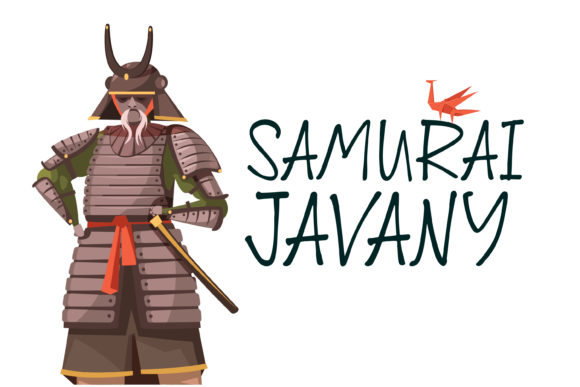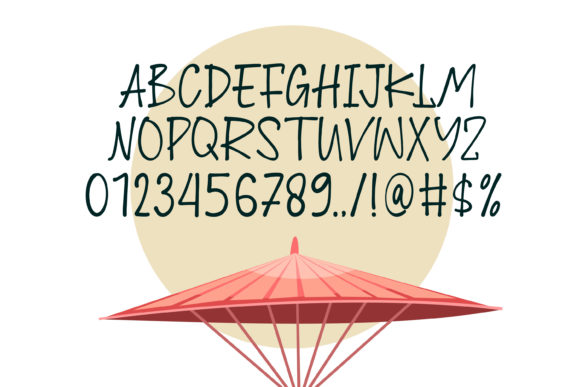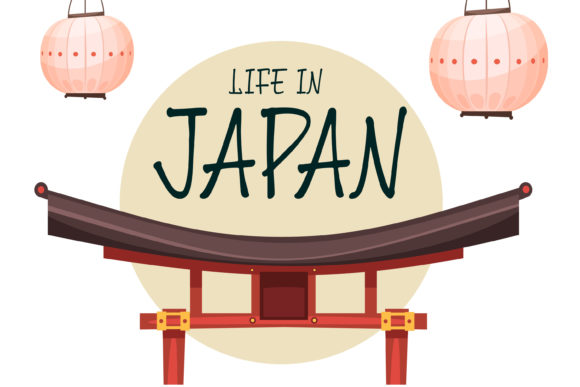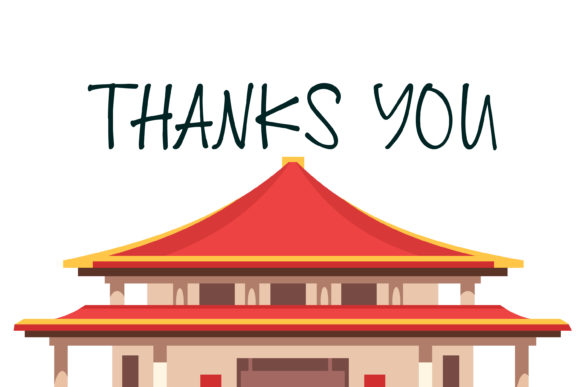
Introduction to Hero Javany Font
Have you ever stared at a blank canvas, waiting for inspiration to strike? It’s that moment when you realize the perfect font can make all the difference. For designers, finding the right font can be a game-changer. It’s the difference between a good design and a great one. And that’s exactly where the Hero Javany Font comes in – a breath of fresh air in the world of typography.
This incredibly genuine and fresh display font is inspired by the beautiful art of Japanese calligraphy. Its unique, playful, and friendly style makes it a must-have in any font library. Whether you’re designing home decor, T-shirts, or crafts, the Hero Javany Font is the perfect addition to your creative project. With its high-quality design and transparent background, it’s the perfect design resource for anyone looking to add a personal touch to their work.
Key Features of Hero Javany Font
- High-quality design resource for creative projects: The Hero Javany Font is a premium font designed for various applications, including graphic design, digital art, and more.
- High-resolution design: The font is designed at a high resolution, making it suitable for use in various mediums, including print and digital applications.
- Unique characteristics: The Hero Javany Font features a unique blend of modern and vintage elements, making it perfect for creative projects that require a distinctive look.
- Perfect for creative projects: This font is ideal for use in creative projects, including branding, advertising, and digital art, where a high-quality design resource is essential.
Honest Review: Hero Javany Font
As a designer, I’m always on the lookout for high-quality design resources to elevate my creative projects. The Hero Javany Font caught my attention, and I decided to give it a try. Here’s my honest review.
- The Hero Javany Font has a unique and modern design that adds a touch of sophistication to any project.
- The font is highly customizable, making it perfect for branding and logo design.
The Hero Javany Font also comes with a transparent background option, which is ideal for creating beautiful and modern designs.
Any limitations ⚠️
- The font may not be suitable for projects that require a more classic or traditional look.
- Some users may find the font too bold or overpowering.
Overall, I’m impressed with the Hero Javany Font. It’s a great addition to any designer’s toolkit, and I would definitely recommend it to fellow designers looking for a high-quality, modern font.
Tips for Getting the Most Out of Hero Javany Font
To get the most out of Hero Javany Font, experiment with different font sizes, colors, and combinations. The font’s versatility makes it suitable for a wide range of creative projects, from logos to brochures. Additionally, the font’s transparent background makes it easy to overlay on images or create a seamless design.
Hero Javany Font is commonly used for creative projects such as logos, brochures, business cards, and social media graphics. Its high quality and versatility make it an ideal design resource for designers, marketers, and entrepreneurs.